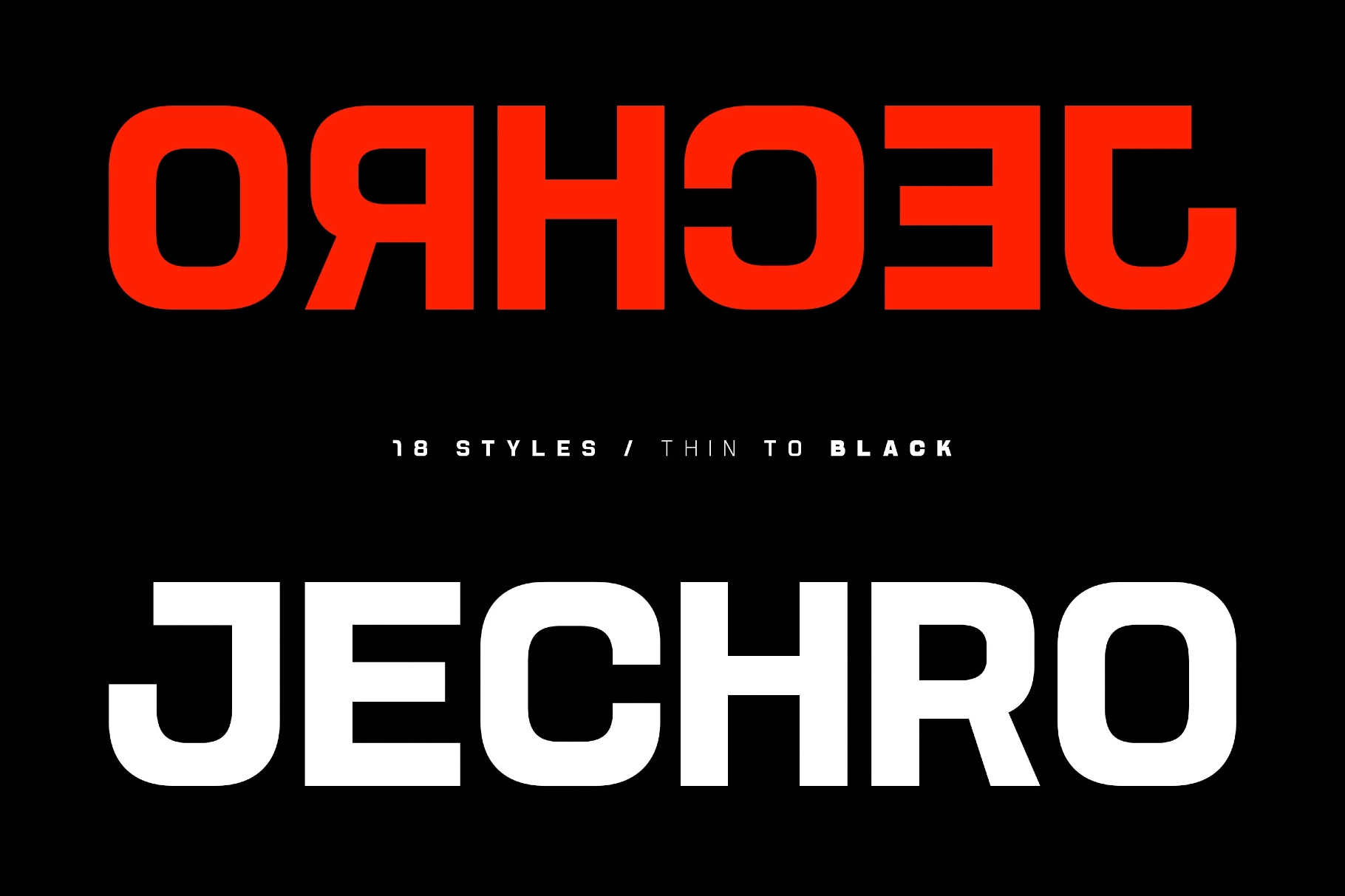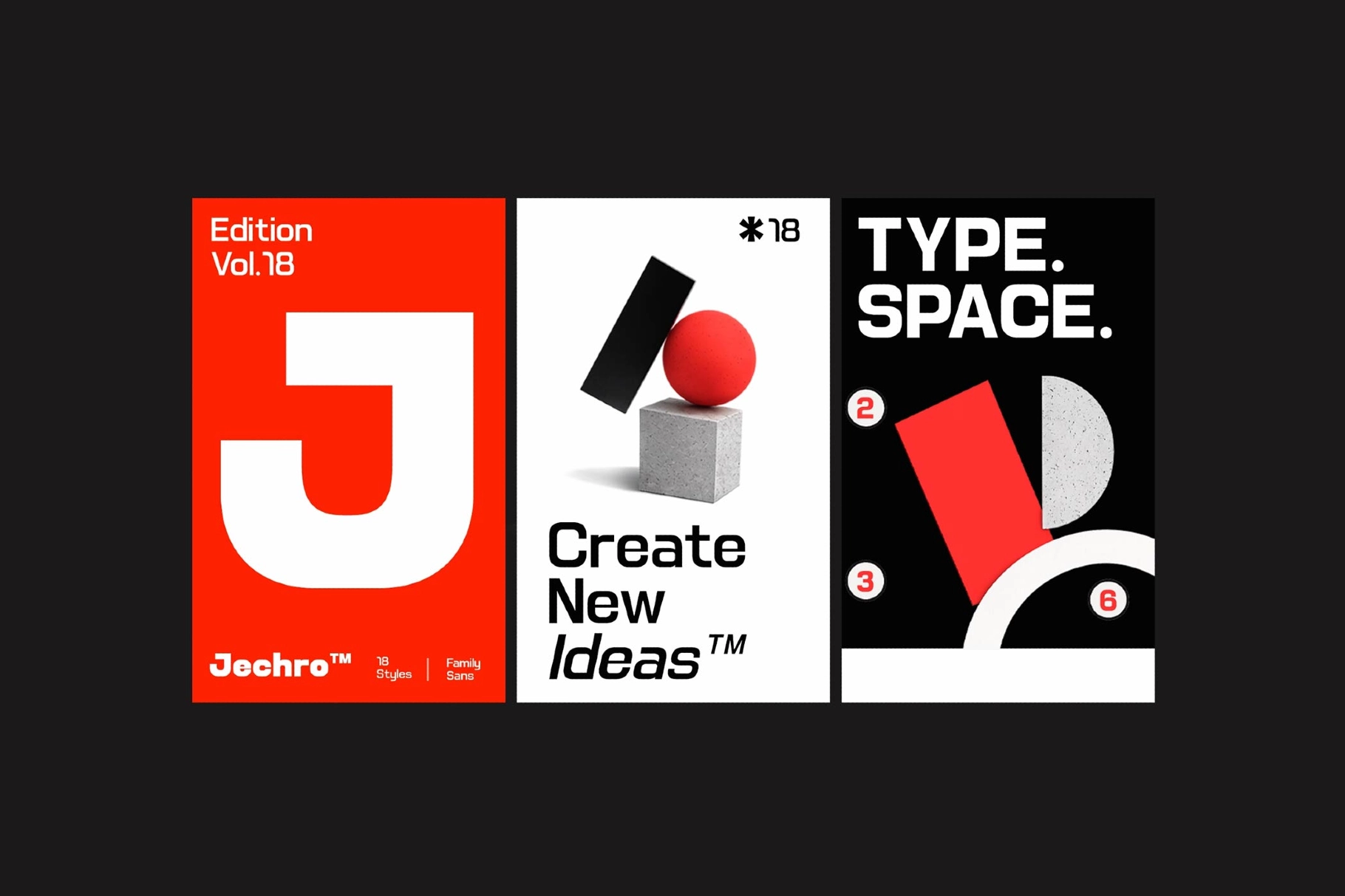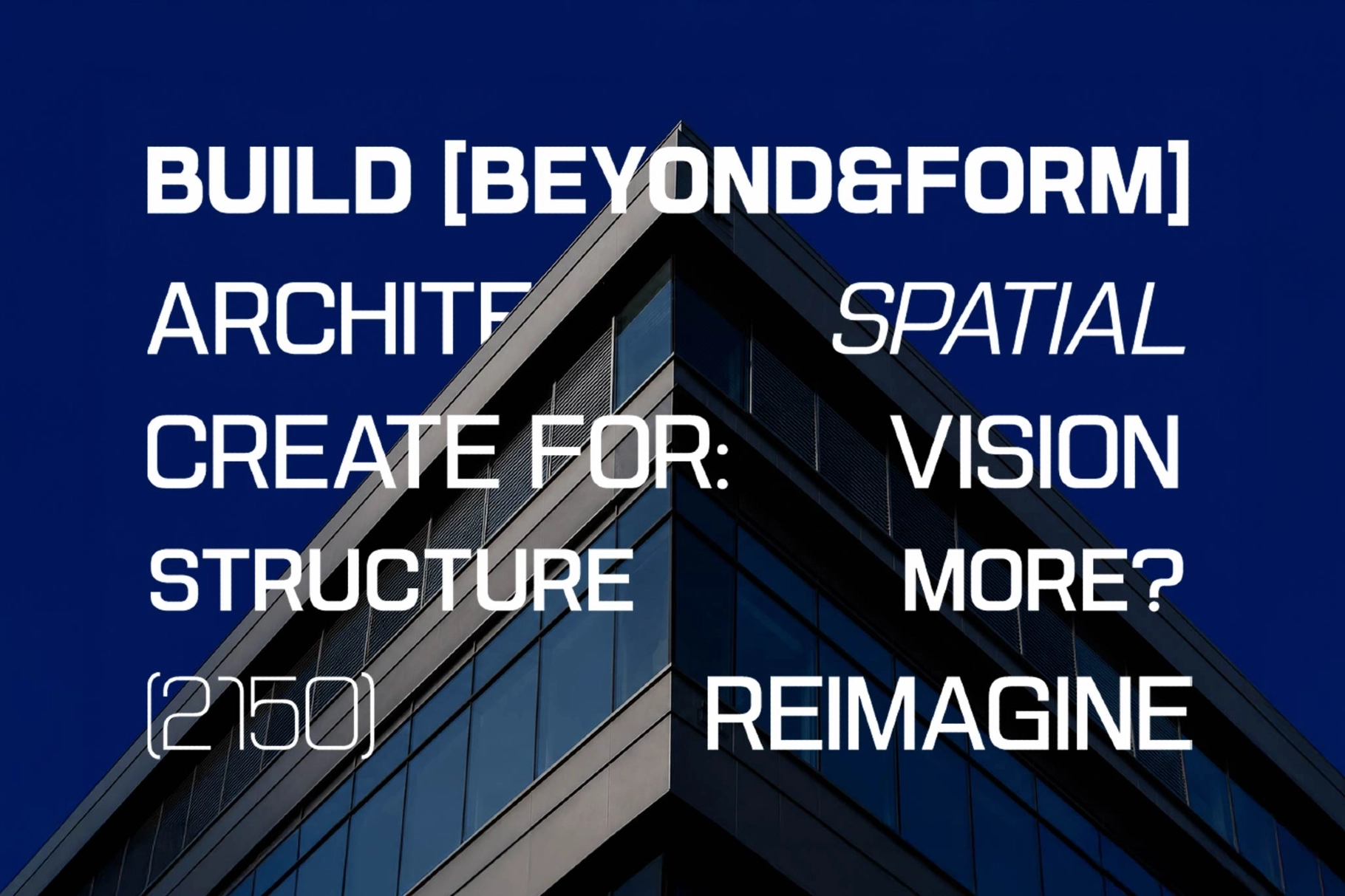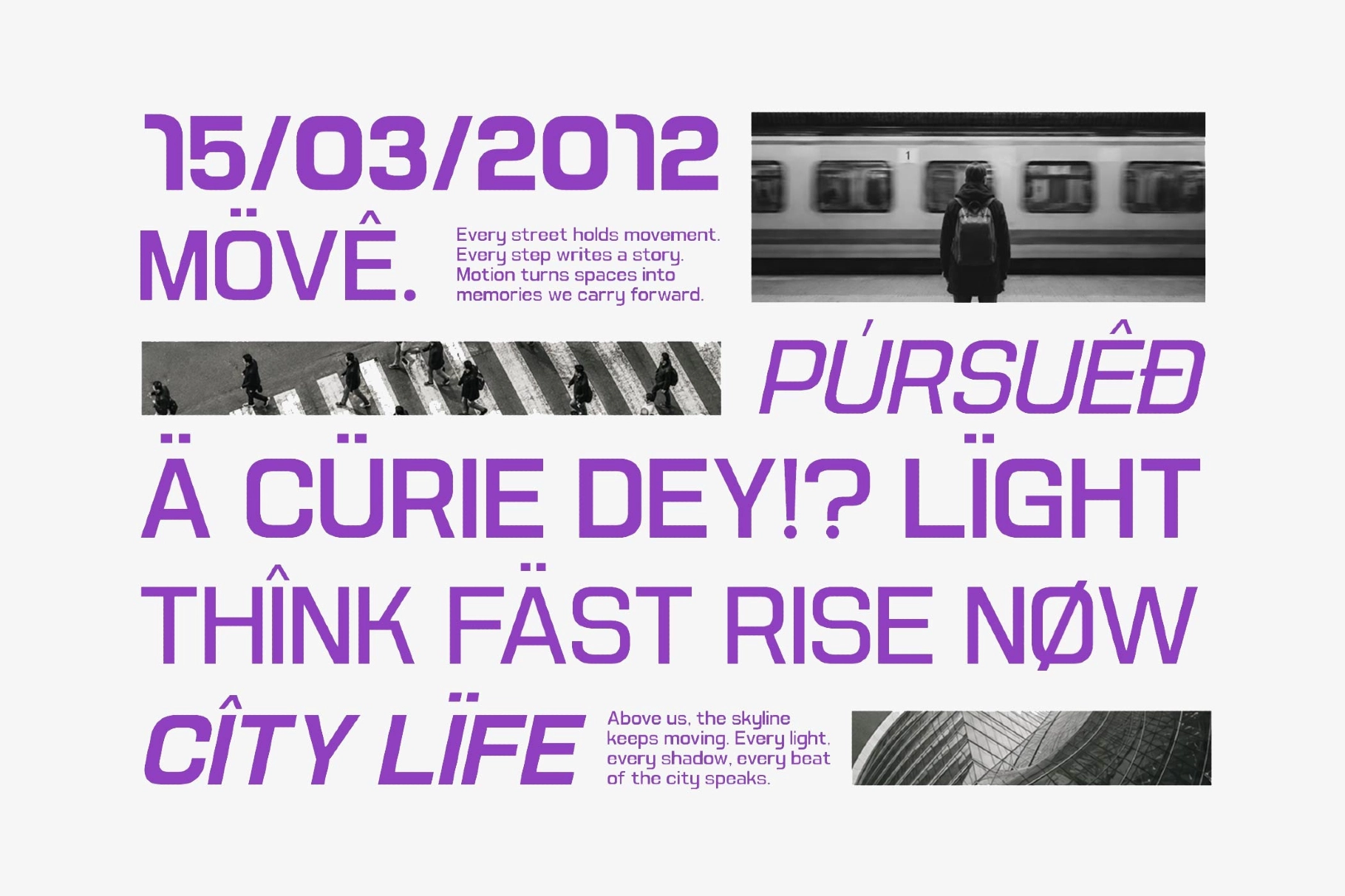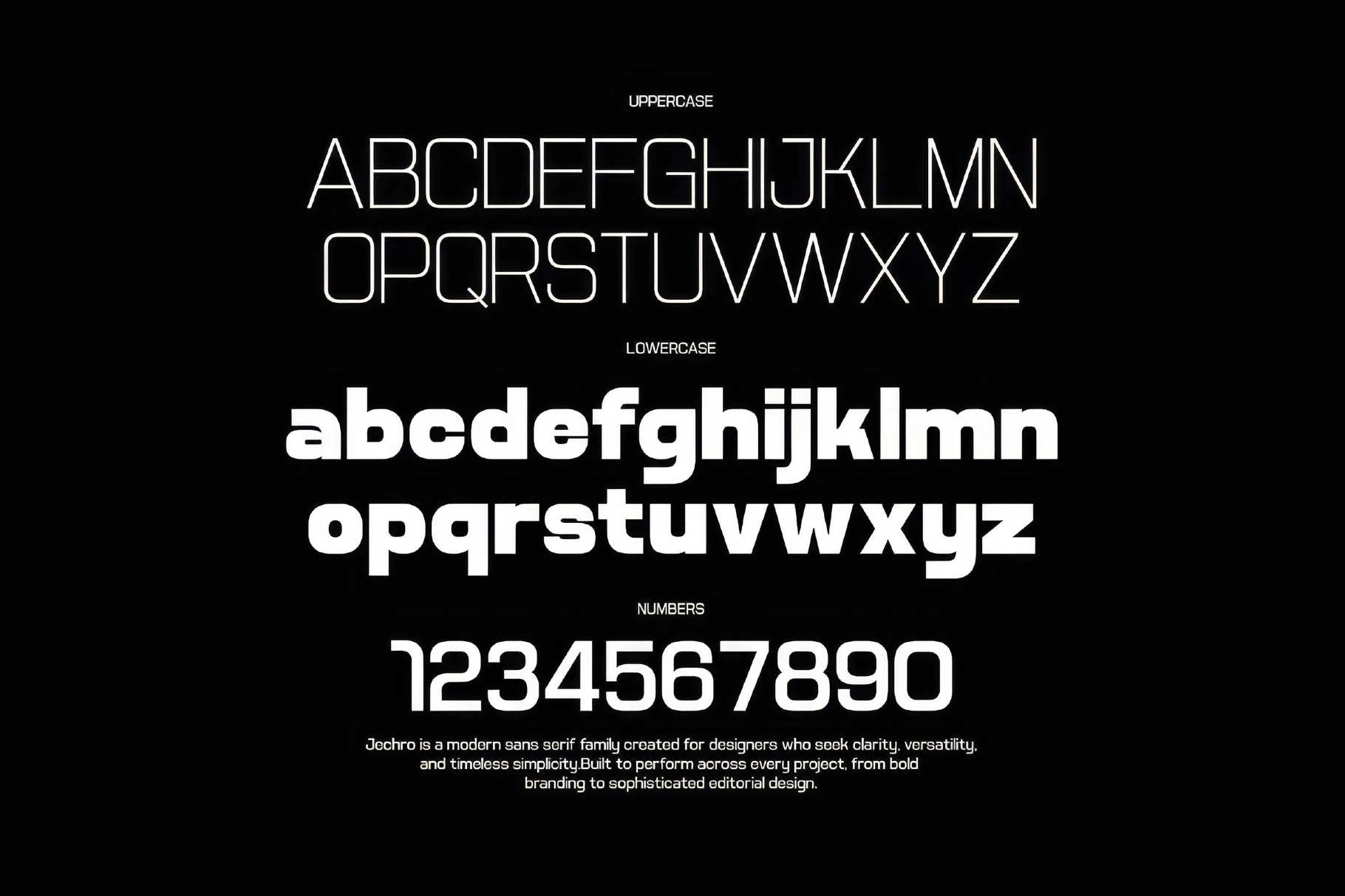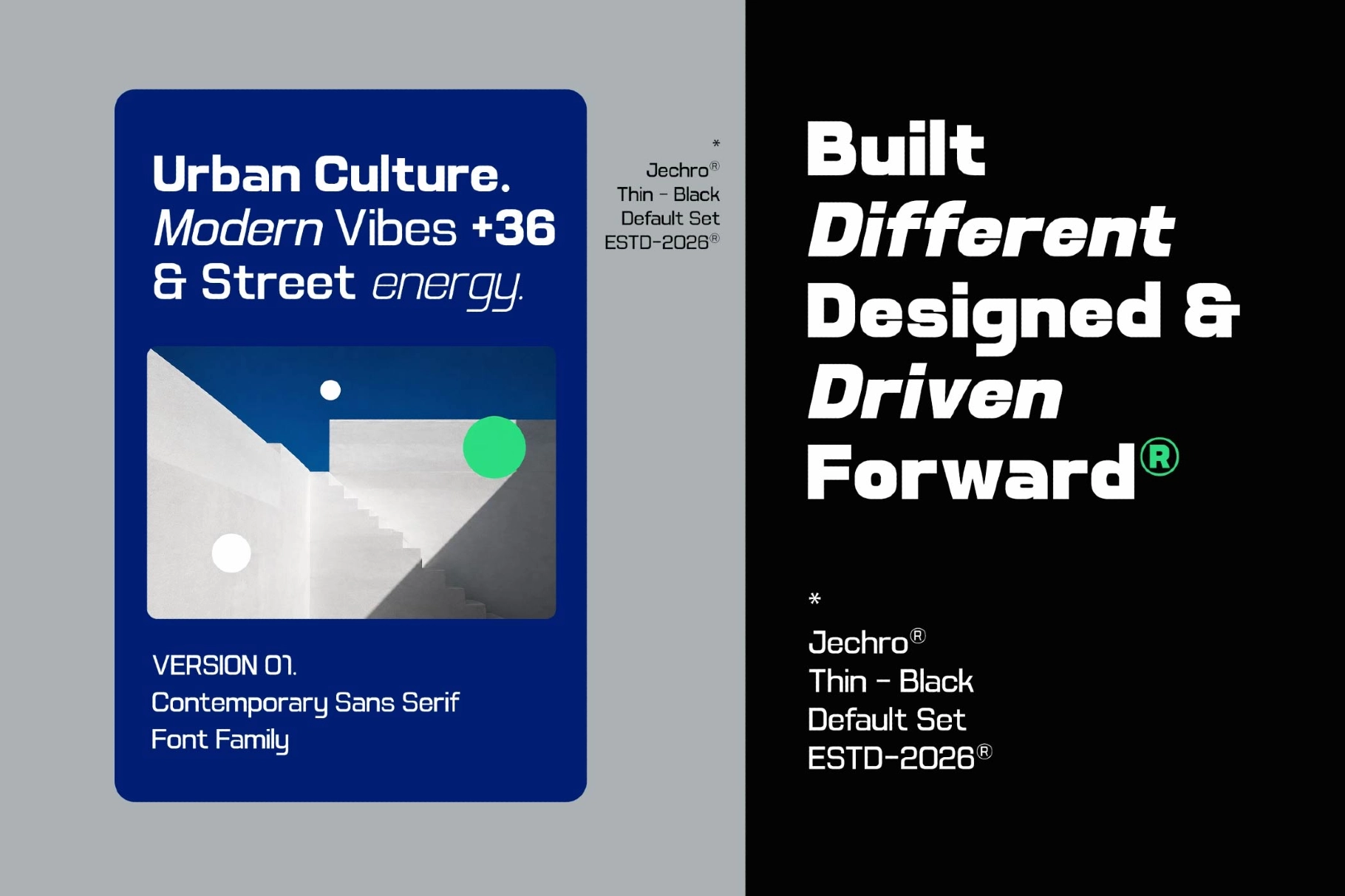
Jechro - Geometric Sans Serif Family
Jechro is a geometric sans serif font family with tall x-height letterforms, even circular counters, and crisp monolinear strokes built for technical, editorial-grade type systems. The construction favors clean, systematic geometry over organic curves — closer to a signage alphabet than a display face — giving headlines and interfaces a controlled, engineered rhythm.
Nine weights run from Thin to Black, each paired with a matching italic and linked through Variable Font technology, so the family adjusts smoothly between UI text, editorial headlines, and bold display type. Use it for branding systems, editorial layouts, UI and product design, architecture presentations, advertising campaigns, packaging, posters, and social graphics.
- 9 weights: Thin, ExtraLight, Light, Regular, Medium, SemiBold, Bold, ExtraBold, Black;
- Matching italic styles for every weight;
- Uppercase & lowercase;